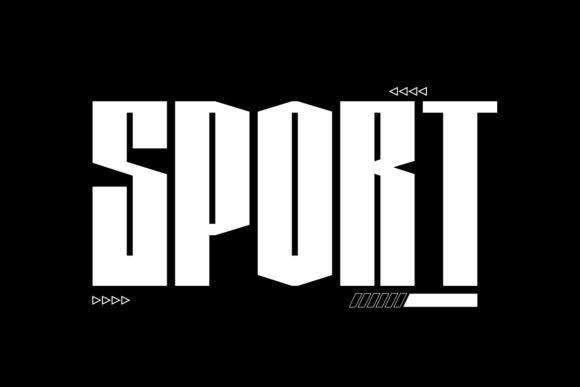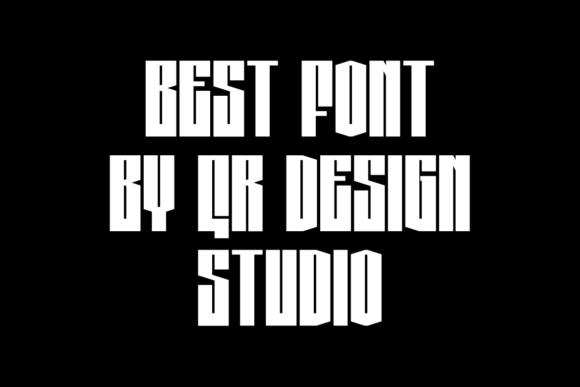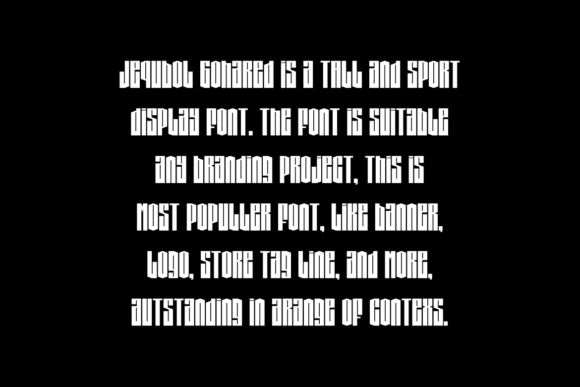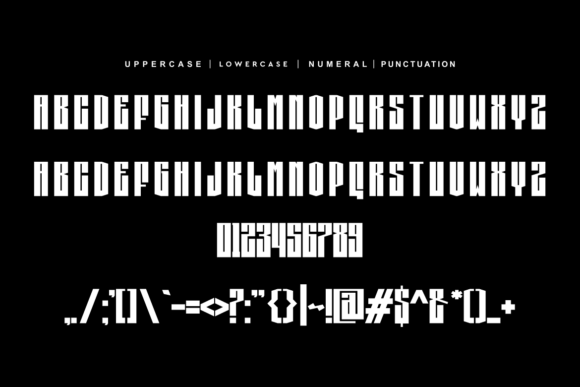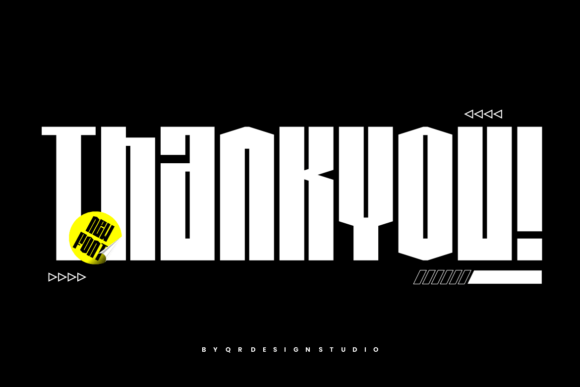
Introduction to Jequbol Gohared Font
As a designer, there’s nothing quite like the thrill of seeing your creative vision come to life. It’s the moment when the words on your page or screen start to feel like a tangible reflection of your personality and style. For those of us who live and breathe design, finding the perfect font can be the key to unlocking that magic.
That’s where the Jequbol Gohared Font comes in – a bold and authentic display font that’s ready to elevate your branding projects and leave a lasting impression. Whether you’re working on a logo, a sports-themed campaign, or any other creative project, this high-quality font is the perfect design resource to help you stand out from the crowd.
Key Features of Jequbol Gohared Font
- High-quality design for creative projects and presentations, making it an ideal design resource.
- Unique characteristics: This font features a modern and elegant design, perfect for creative projects and presentations.
- Perfect for designers and artists looking for a high-quality design resource for their creative projects.
Honest Review: Jequbol Gohared Font
I recently came across the Jequbol Gohared Font, and I must say, it’s been a game-changer for my creative projects. The high-quality design is perfect for any project that requires a unique and elegant touch. What works well is the ✨ transparent background, which allows for seamless integration into any design.
Here are some of the features that I like about the Jequbol Gohared Font:
- Unique and elegant design
- High-quality graphics
Overall, I’m impressed with the Jequbol Gohared Font, and I would definitely recommend it to other designers who are looking for a high-quality, free design resource. It’s a great addition to any design library, and it’s perfect for any creative project that requires a unique touch.
Tips for Getting the Most Out of Jequbol Gohared Font
Use the Jequbol Gohared Font to add a unique touch to your creative project. Experiment with different font sizes, colors, and styles to create a visually appealing design. You can also use the font in combination with other design elements to create a cohesive look.
The Jequbol Gohared Font is suitable for a variety of use cases, including branding, marketing materials, and digital products. You can use it to create a consistent look and feel across your design projects.